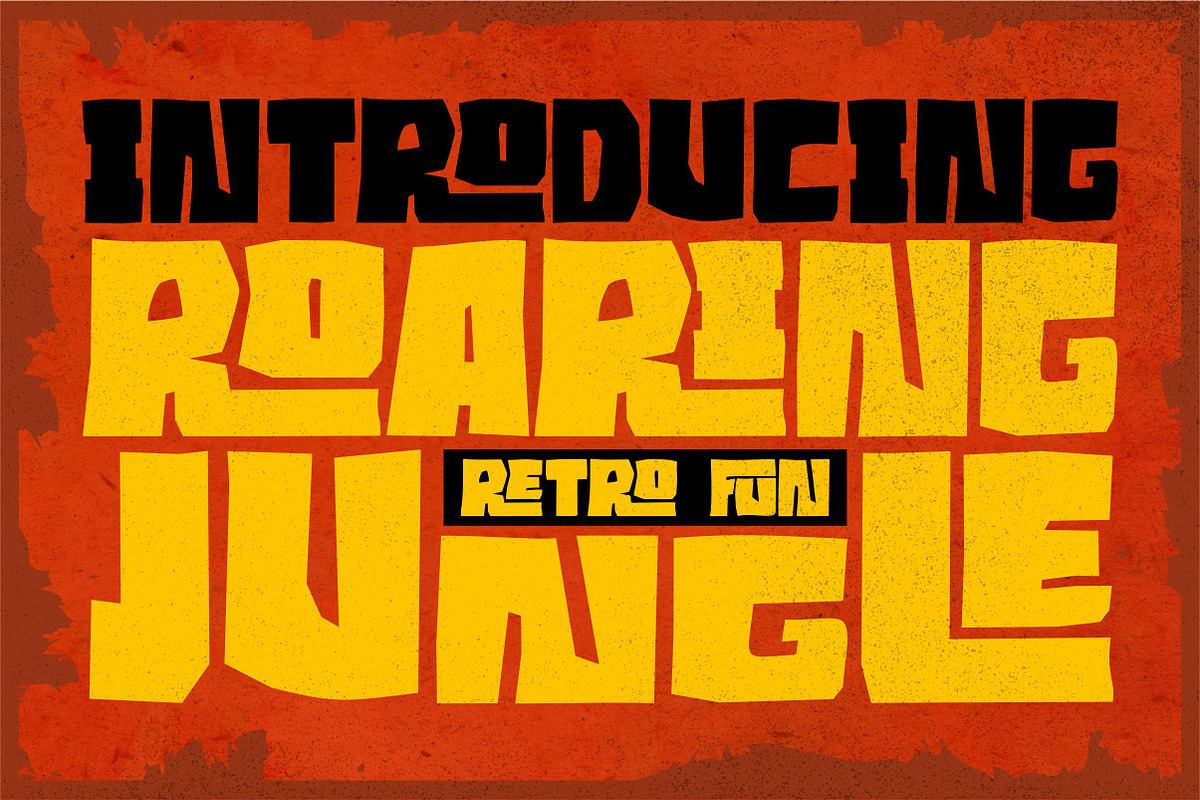
Roaring Jungle Retro Font Free Download is a wild and vibrant typeface inspired by vintage design and adventurous spirit. With bold curves, playful letterforms, and a touch of retro funk, this font is perfect for posters, t-shirt designs, branding, children’s books, and anything that needs a splash of nostalgic energy.
Whether you're aiming for a 70s-inspired aesthetic or just want your design to stand out with personality, Roaring Jungle delivers a unique look that’s both fun and functional. Its lively vibe makes it a great fit for creative projects that need to roar with style.